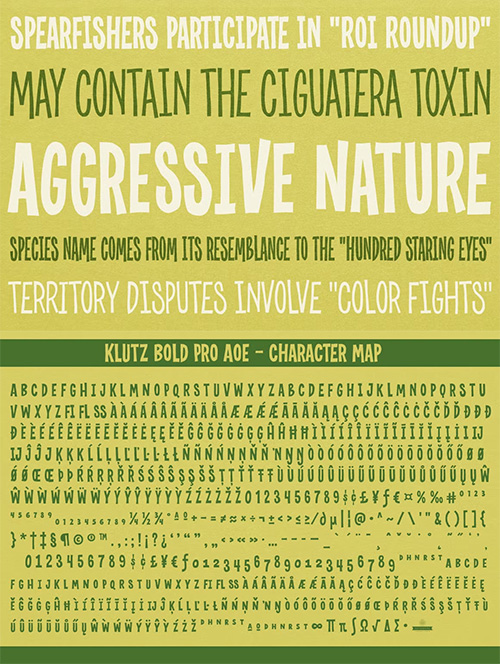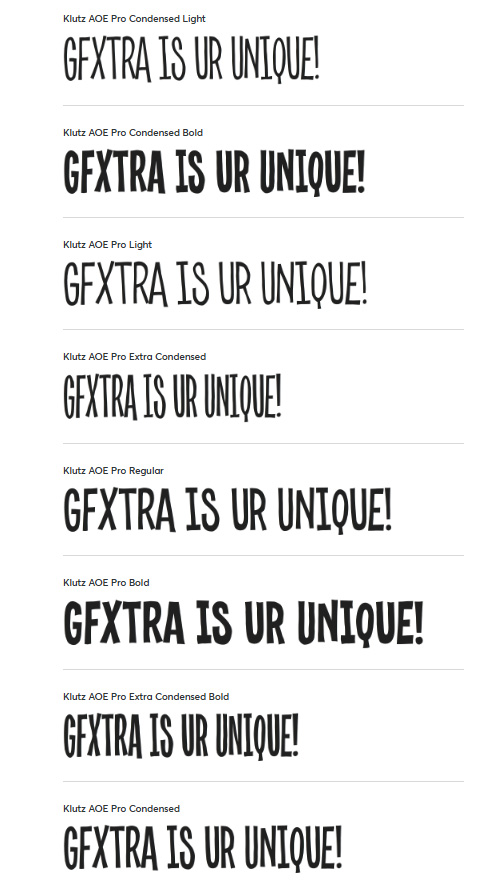
- The Klutz AOE Pro Collection was inspired by the plethora of naive hand drawn lettering becoming commonplace in modern advertising. What I hadn't seen was a family of hand drawn typefaces, in a range of widths and weights, with both alternate capitals as well as small caps character sets...and so Klutz Pro was born.
- The letterforms started with a few letters my daughter had drawn which I expanded on from there. Pulling from inspirations in retro cartoon titling and modern hand lettering playfulness, the full font was born, with weights and width to follow.